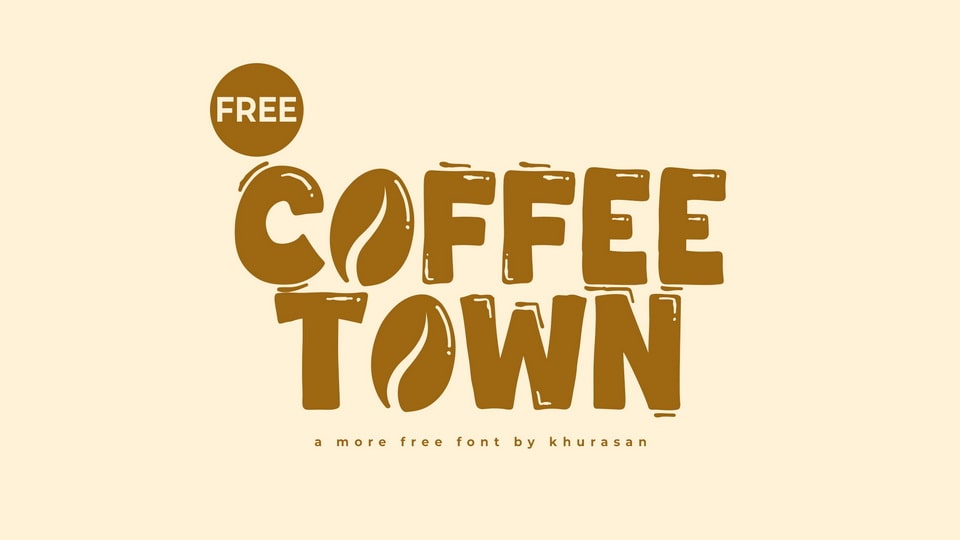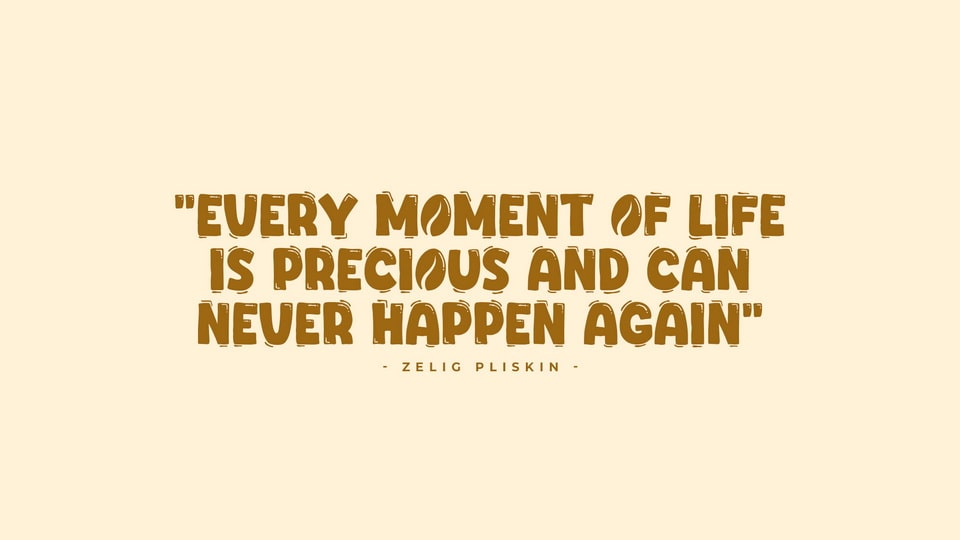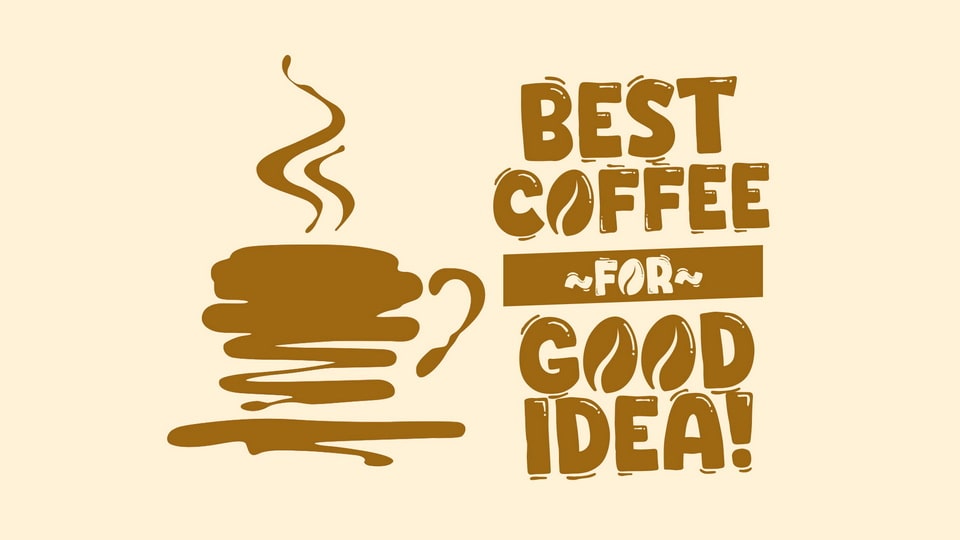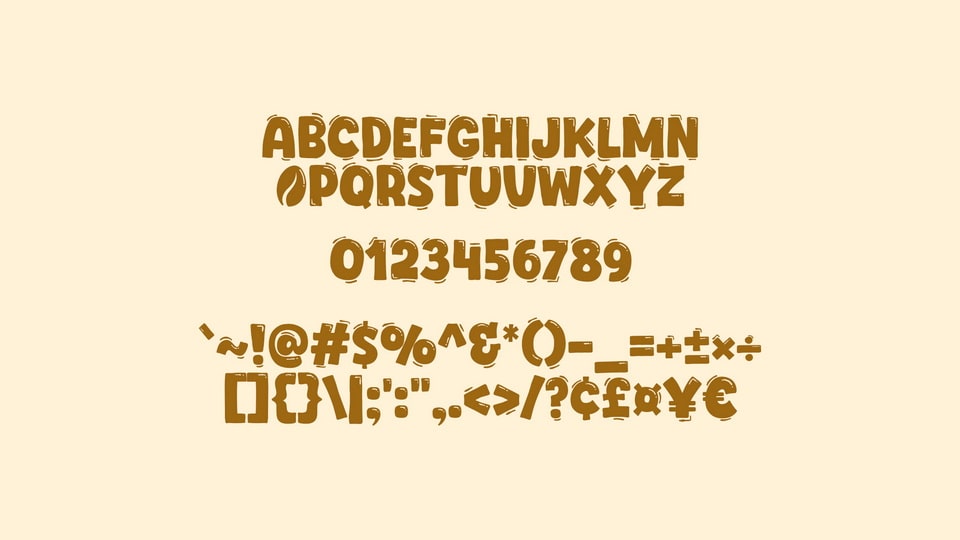
Coffee Town is a warm, handcrafted font inspired by the rich, bold essence of coffee. Each letter is designed with thick, rounded strokes, giving it a cozy and inviting feel, much like a comforting cup of coffee. The subtle hand-drawn texture adds depth and warmth, capturing the artisanal quality of a freshly brewed blend. Coffee Town’s strong yet welcoming presence makes it perfect for café branding, packaging, or any design that seeks to evoke warmth and boldness in equal measure.
Ideal for coffee shops, packaging, or any project that needs a handcrafted, cozy touch, Coffee Town font brings a rich, organic flavor to your designs.